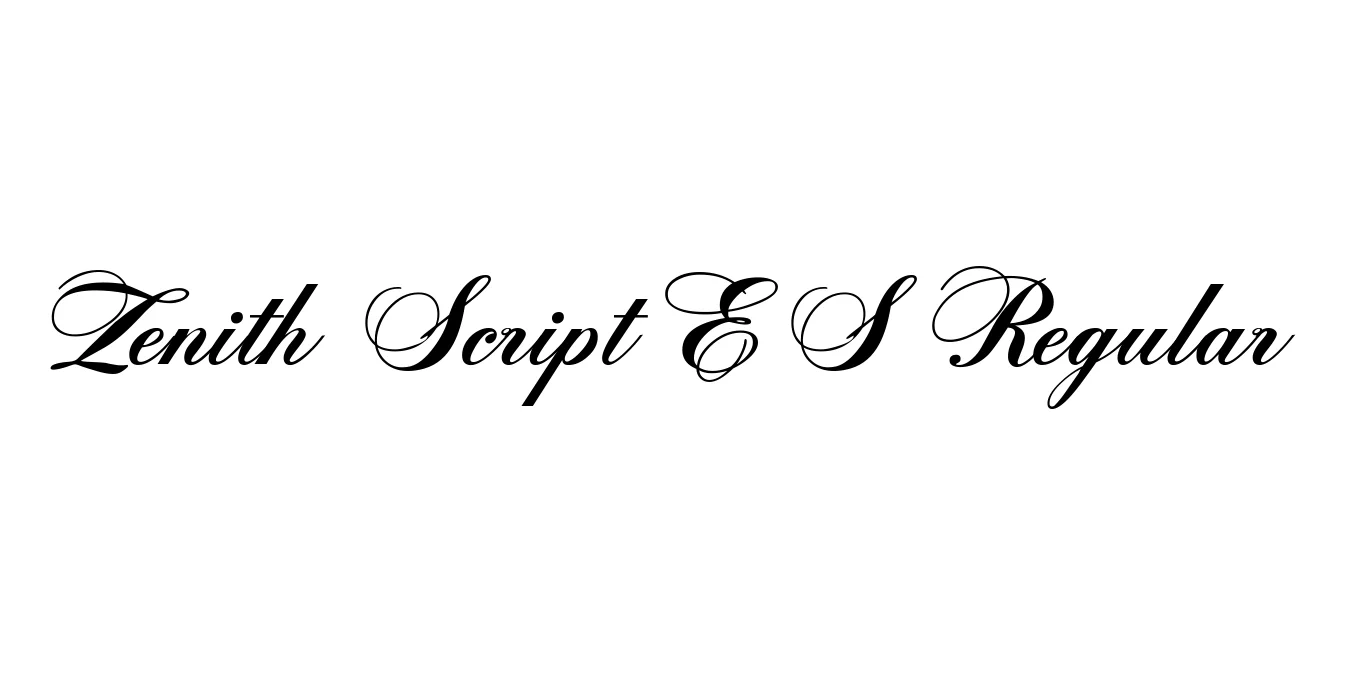
Zenith Script ES Regular
Designed by Euroscope
Zenith Script ES Regular is a sophisticated script font characterized by its elegant, flowing lines and rhythmic letterforms. It embodies a classic calligraphic style while maintaining a high level of digital legibility. The typeface features delicate flourishes and a consistent slant that provides a formal yet welcoming aesthetic, making it an ideal choice for designers looking to convey prestige and grace in their compositions.
Developed by Euroscope, this font was meticulously crafted to bridge the gap between traditional copperplate handwriting and modern digital typesetting. Its versatility allows it to be utilized across various high-end design projects, ranging from bespoke wedding invitations to branding for luxury boutique products. The Regular weight offers a balanced stroke width that performs exceptionally well in both print media and high-resolution screen displays.
Zenith Script ES Regular Best Uses
Perfect for formal invitations, place cards, and romantic save-the-date announcements.
Ideal for luxury logos, high-end perfume packaging, and boutique identity systems.
Excellent for use in decorative headings or pull quotes in fashion and lifestyle magazines.
Great for creating sophisticated quote graphics and elegant promotional banners.